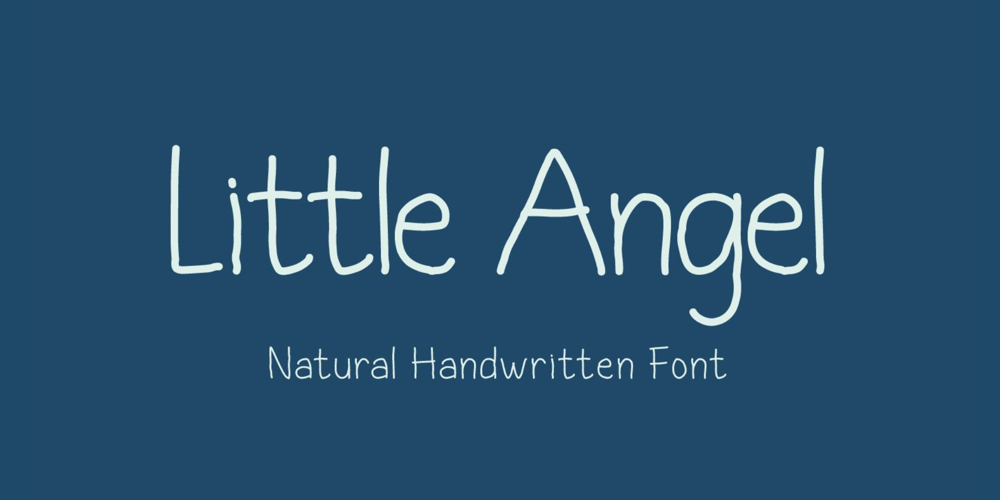
Little Angel Font Family was designed by Irpan Maulana and published by Sabrcreative. Little Angel contains 1 styles and family package options. Enhance your creative projects with the captivating charm of the Little Angel Handwriting Font. This exquisite handwriting font offers a harmonious blend of elegance and playfulness, making it an ideal choice for a wide range of design ventures. Crafted with meticulous attention to detail, the font includes both uppercase and lowercase characters, ensuring versatility in your typography.